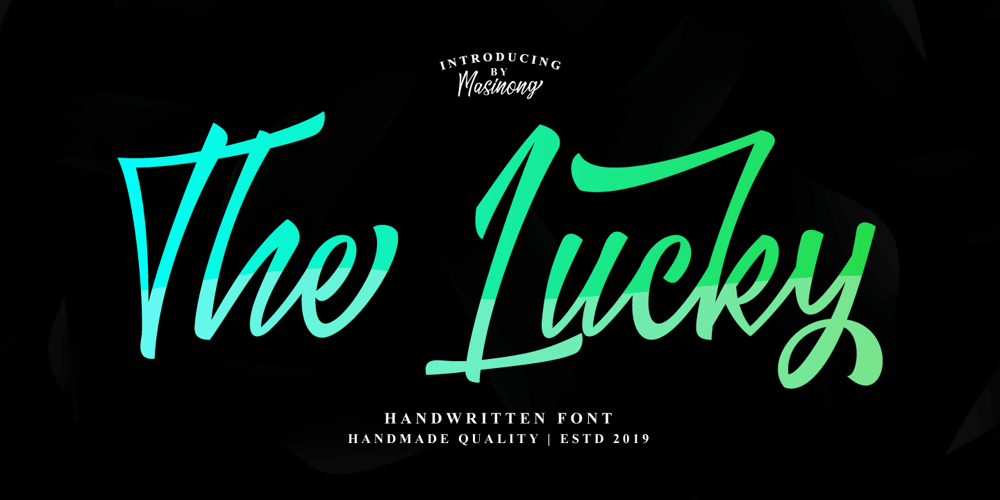
The Lucky Font Family was designed by Fajriadi and published by Masinong Studio. The Lucky contains 1 styles and family package options. The Lucky combines a retro and hand-lettering style. I’m made it with a personal touch in every single curve. I hope this can inspiration to your work. It pairs perfectly with other fonts and contains a handy set of bonus swashes. It is ideal for logos, handwritten quotes, product packaging, headers, posters, merchandise, social media and greeting cards. Features: Basic Latin A-Z and a-z Numbers Symbols Stylistic Set Ligature PUA Encode Multilanguage Support To enable the OpenType Stylistic alternates, you need a program that supports OpenType features such as Adobe Illustrator CS, Adobe Indesign & CorelDraw X6-X7. There are additional ways to access alternates, using Character Map (Windows), Nexus Font (Windows), Font Book (Mac) or a software program such as PopChar (for Windows and Mac). If you have any question, don’t hesitate to contact me by email masinong.studio@gmail.com š